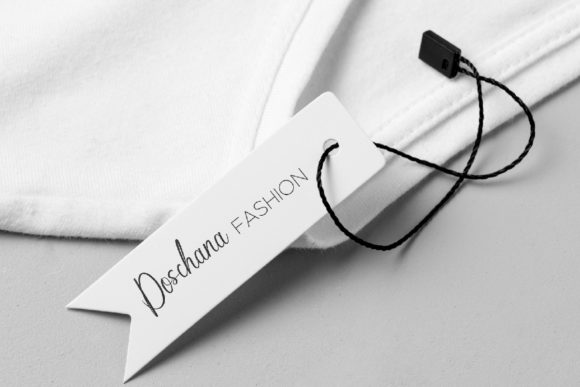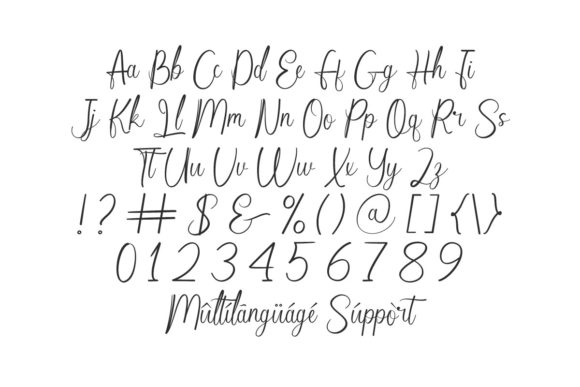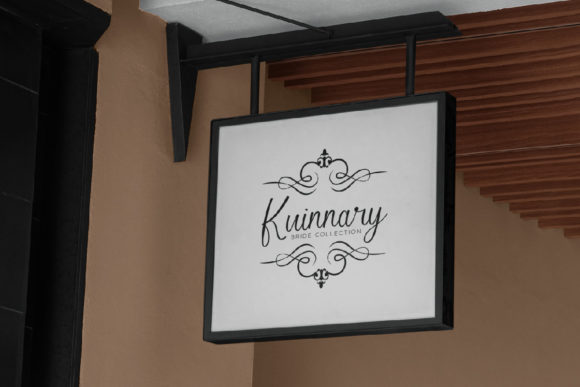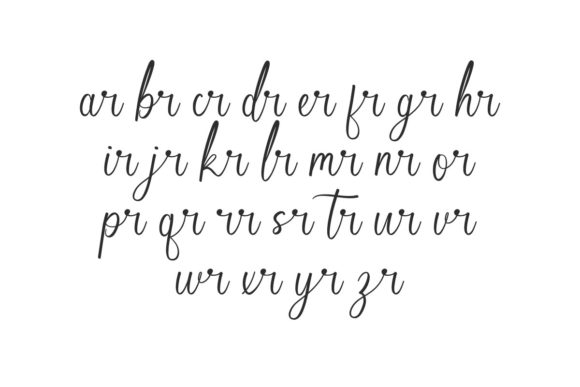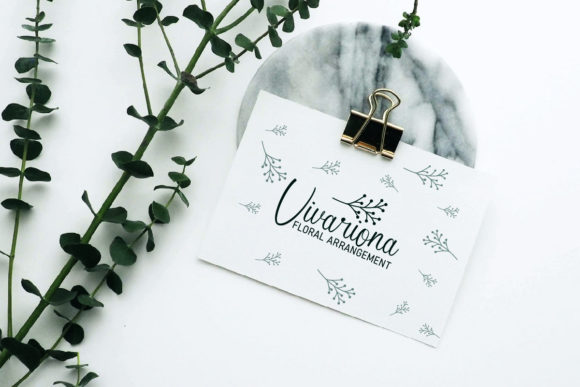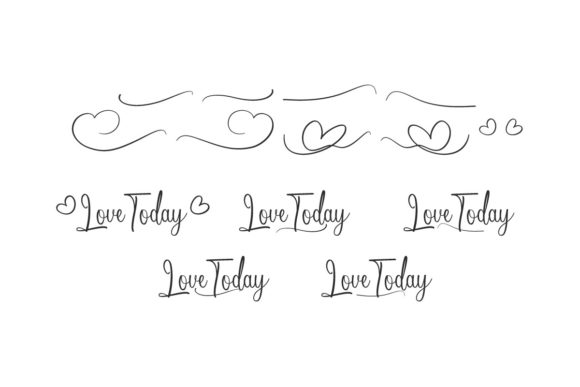
Introduction to Love Today Font
As you sit at your desk, surrounded by scattered papers, half-empty coffee cups, and a computer screen that’s been staring back at you for hours, you finally feel that spark of inspiration. The idea hits you – a beautiful, elegant design for your next project. You start brainstorming, and suddenly, the perfect font comes to mind: the Love Today Font.
With its lovely and chic script style, the Love Today Font is perfect for a wide range of creative projects. Whether you’re designing product packaging, branding materials, or a magazine cover, this font is sure to add a touch of sophistication and elegance. And with its transparent background feature, you can easily use it to express words above a background, making it a valuable resource for designers looking to add a personal touch to their work.
For designers, the Love Today Font is a high-quality design resource that can elevate any project. And the best part? It’s available for free download, making it an accessible addition to your design toolkit. Whether you’re working on a large branding project or a small social media campaign, the Love Today Font is sure to be a valuable asset in your creative endeavors.
Key Features of Love Today Font
- High-quality design resource for creative projects, offering a unique and elegant touch.
- Transparent background, allowing for easy customization and seamless integration into various design elements.
- Perfect for use in digital designs, such as social media graphics, logos, and web headers, due to its modern and stylish aesthetic.
- Can be easily combined with other design elements, like images and graphics, to create visually appealing and eye-catching compositions.
Honest Review: Love Today Font
I recently stumbled upon the Love Today Font, and I must say it’s a lovely addition to my design resource collection. The font’s unique design makes it perfect for creative projects where you want to add a touch of elegance and sophistication.
Here are some things that work well about the Love Today Font:
- ✨ High quality design that’s perfect for various design projects
- ✨ Beautifully crafted letters that add a personal touch to any design
- ⚠️ The font doesn’t have a transparent background, which can make it difficult to use in certain design scenarios
- ⚠️ The font is limited in its character set, which may not be suitable for projects that require a wide range of characters
Overall, I’m impressed with the Love Today Font. It’s a great addition to any design resource collection, and I appreciate its high quality and unique design. If you’re looking for a beautiful font to add some elegance to your design projects, I highly recommend checking it out.
For best results, use the Love Today Font in combination with other high-quality design elements. This font is ideal for wedding invitations, birthday cards, and other creative projects that require a touch of romance and elegance. Experiment with different font sizes and styles to get the most out of this beautiful font.